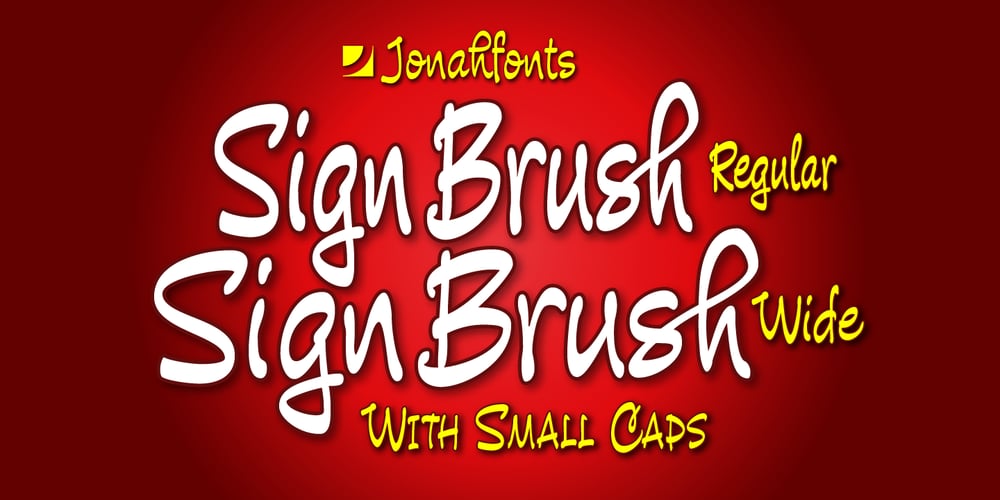
Sign Brush Font Family was designed by John Nahmias and published by Jonahfonts. Sign Brush contains 2 styles and family package options. A casual, unconnected script face. A brush script designed after my younger days as a sign painter, suitable for work requiring immediate attention most often seen on packaging and supermarkets. Works equally well for captions, invitations, cards, posters, ads, greeting cards & book jackets among others.